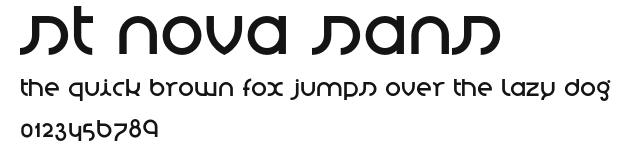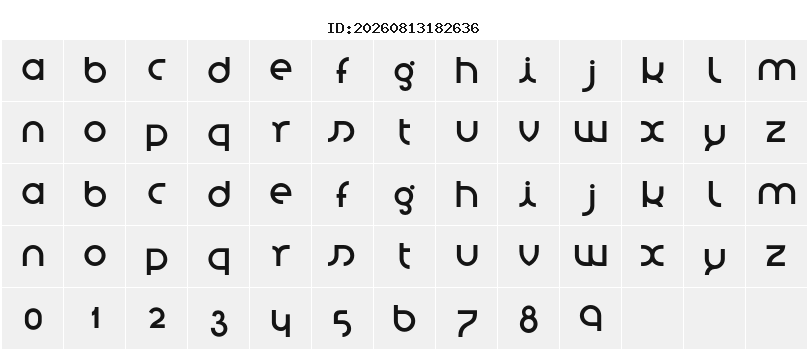
st nova sans Preview
• Font Name: st nova sans
• Font ID: FranciscoMartins: st nova sans: 2006
• Full Font Name: stnovasans
• PostScript Name: stnovasans
• Designer: Francisco Martins
• Manufacturer: Francisco Martins
About st nova sans.otf
st nova sans.otf is a modern, elegant sans-serif font designed for ultimate readability and visual harmony. Perfect for branding, headlines, web design, and print materials.